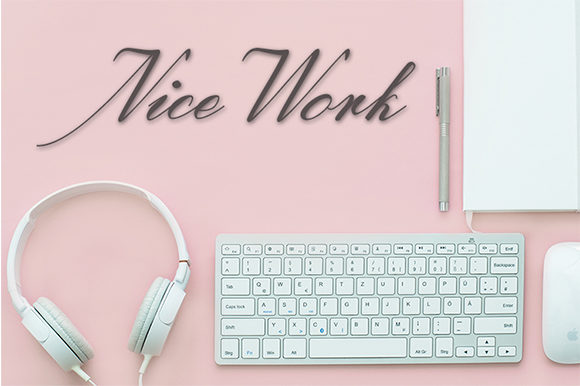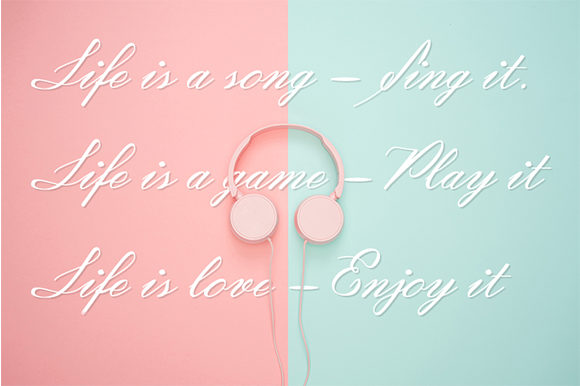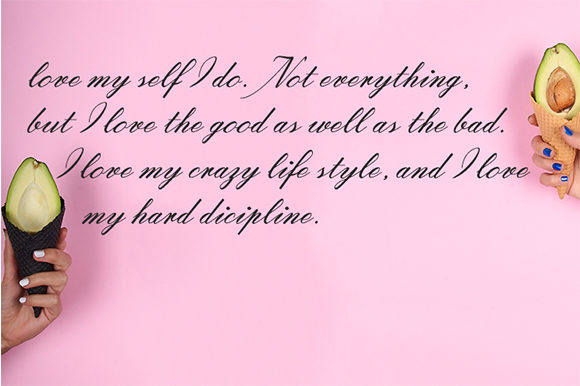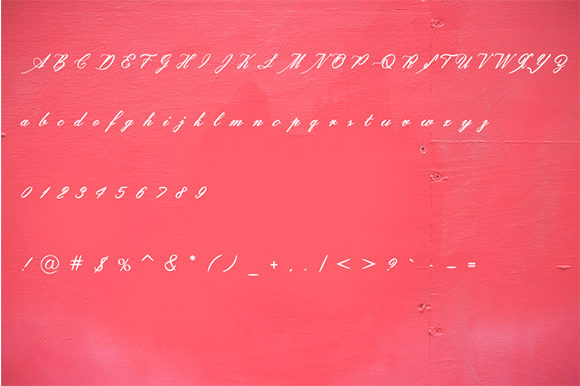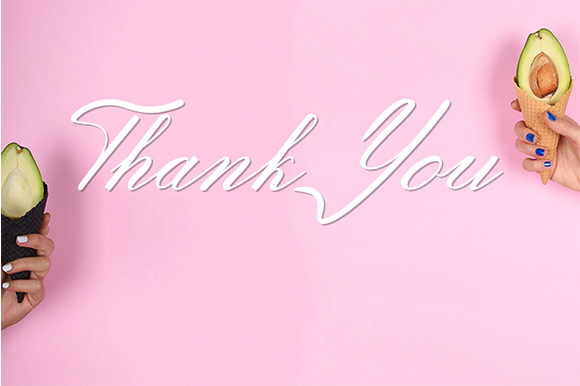
Timeless Elegance: Unveiling the Beauty of Assamurat Font
As a designer, there’s nothing quite like the thrill of discovering a new font that sparks inspiration. It’s that moment when the perfect combination of style and sophistication comes together, elevating your work to new heights. For me, that moment arrived when I stumbled upon the Assamurat Font – a sweet and delicate handwritten font that breathes new life into classic calligraphy.
With its modern twist on traditional calligraphy, the Assamurat Font is the perfect addition to any designer’s toolkit. Whether you’re crafting a wedding invitation, a birthday card, or a brand logo, this font’s timeless elegance is sure to captivate your audience. Its versatility and sophistication make it an invaluable asset for designers looking to add a touch of sophistication to their work.
- Unique Characteristics: Assamurat is a unique, hand-drawn font with intricate details and ornate flourishes, making it ideal for use in luxury branding, invitations, and high-end designs
Assamurat Font Review
Overall, I’m quite impressed with the Assamurat Font, especially in its unique blend of traditional and modern elements ✨. The font’s bold and expressive style makes it perfect for creating visually striking headlines and titles.
Here are some of the key strengths of the Assamurat Font:
- Expressive and bold style that grabs attention ✨
- Great for creating unique headlines and titles
- Works well in both print and digital formats
However, I do have some reservations about the font’s limitations ⚠️:
- Slightly inconsistent spacing between characters, which can make text harder to read
- Lack of ligature support, which can lead to awkward letter combinations
- Not ideal for body text, as it can be quite dense and overwhelming
Overall, I’d give the Assamurat Font a solid 4 out of 5 stars. While it excels in creating striking headlines and titles, its limitations prevent it from being a go-to font for everyday body text. With some adjustments to spacing and ligature support, the Assamurat Font could be a true powerhouse in the world of typography.
Getting the Most Out of Assamurat Font
For optimal results, use the Assamurat font in combination with bold or italic styles to add emphasis to your text. You can also experiment with different font sizes to create a visually appealing hierarchy.
The Assamurat font is particularly well-suited for creative projects, such as logo design, typography-based art, and graphic novels. Its unique, hand-drawn style makes it an excellent choice for adding a personal touch to your designs.
What are the technical details of the Assamurat Font?